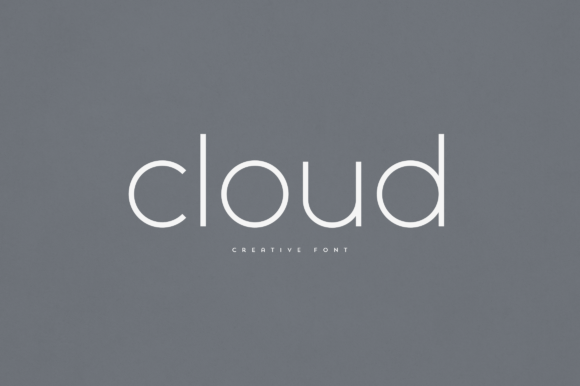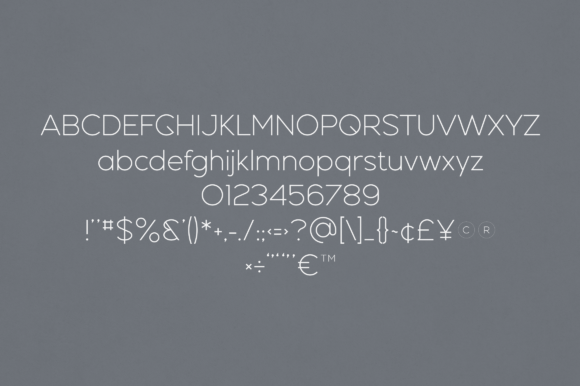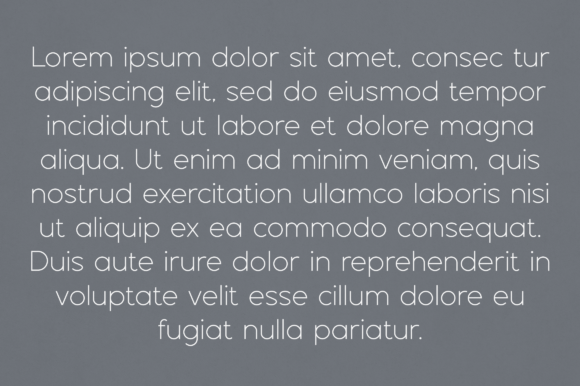
Cloud Font: A Minimalist Sans Serif for Modern Logo Design
About the Cloud Font
Elevate your designs with Cloud Font, a font that combines sophistication with readability. Cloud is an elegant and versatile sans serif font that will make your typography truly unique! It will enchant every logo, branding, headline, or plain text!
This font is perfect for branding projects, home-ware designs, product packaging, magazine headers – or simply as a stylish text overlay to any background image.
Cloud’s elegant, yet versatile nature makes it ideal for headlines, branding applications, and short-form text on packaging or posters. Its refined curves lend themselves well to sophisticated projects requiring a touch of class. However, the subtle details might become lost in smaller sizes or extensive body copy, making it less suitable for long-form text or UI elements.
For optimal visual harmony, pair Cloud with a complementary serif like Garamond for a classic feel, or a geometric sans-serif like Futura for a modern contrast. A script font such as Allura could add a touch of handwritten elegance to invitations or branding materials where a more luxurious aesthetic is desired.
Cloud projects a sophisticated and subtly modern personality, best suited for brands aiming for a refined image. Think high-end fashion, premium cosmetics, or artisanal food products. Avoid using it where a strong, bold statement or a highly informal tone is required.